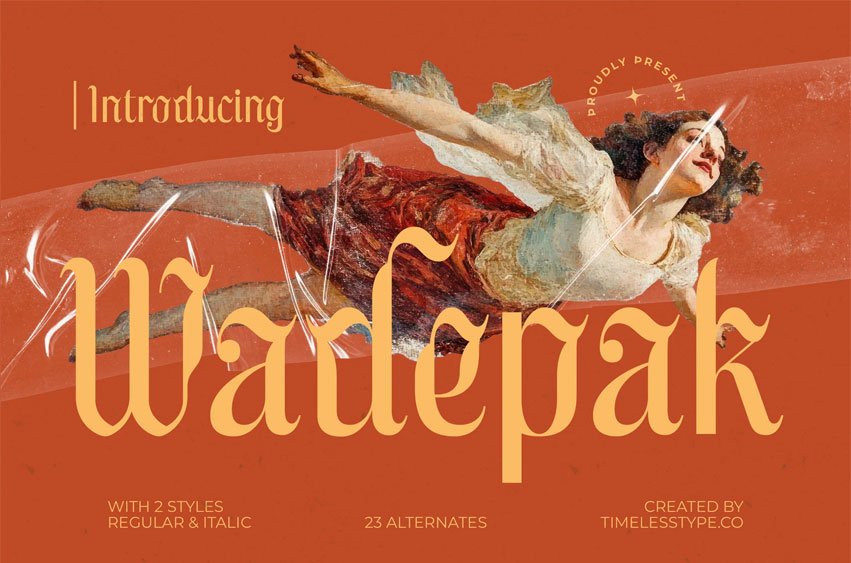
Wadepak Font is an ornate serif typeface crafted with expressive curves, sharp elegance, and a strong vintage character. Inspired by classical typography and artistic poster lettering, this font blends decorative strokes with modern readability—perfect for designers who want a touch of sophistication without losing personality.
Featuring 2 styles (Regular & Italic) and 23 stylistic alternates, Wadepak offers the flexibility to create dramatic headlines, editorial layouts, branding identities, packaging, invitations, and artistic display compositions. Every curve is shaped to captivate, making the font ideal for projects that demand refinement and visual storytelling.